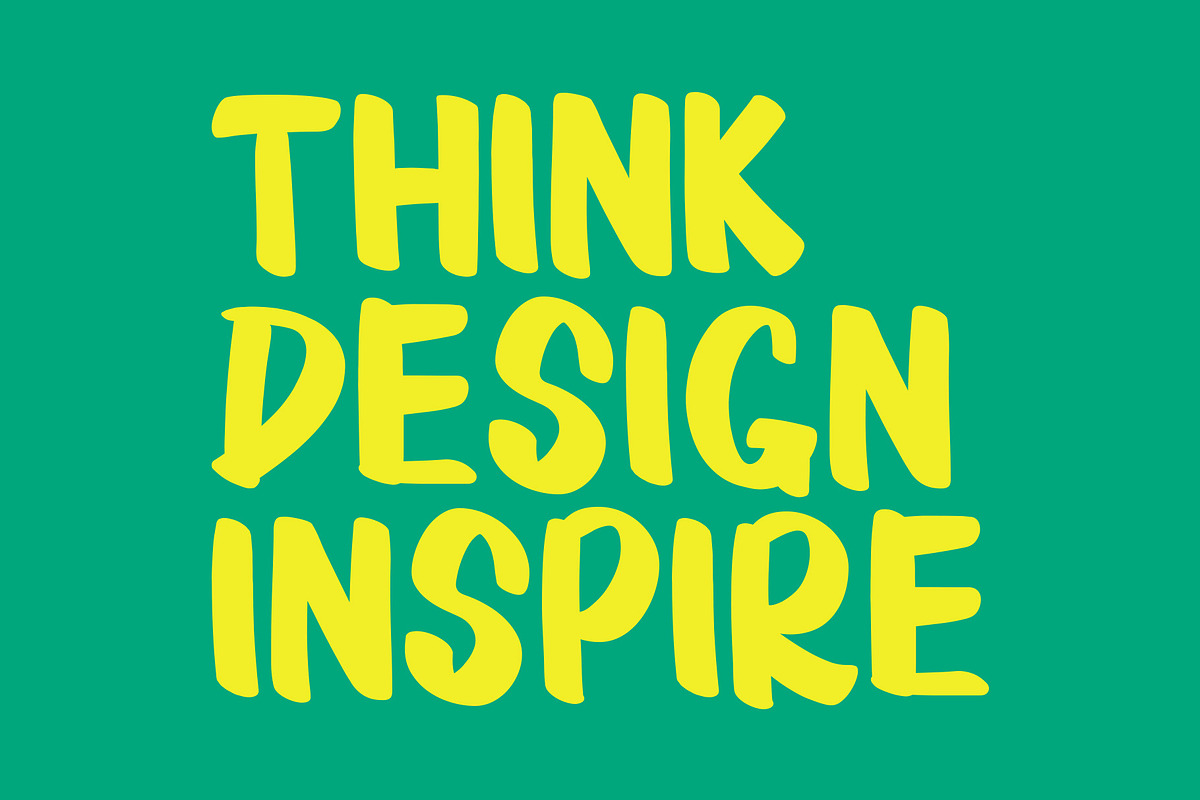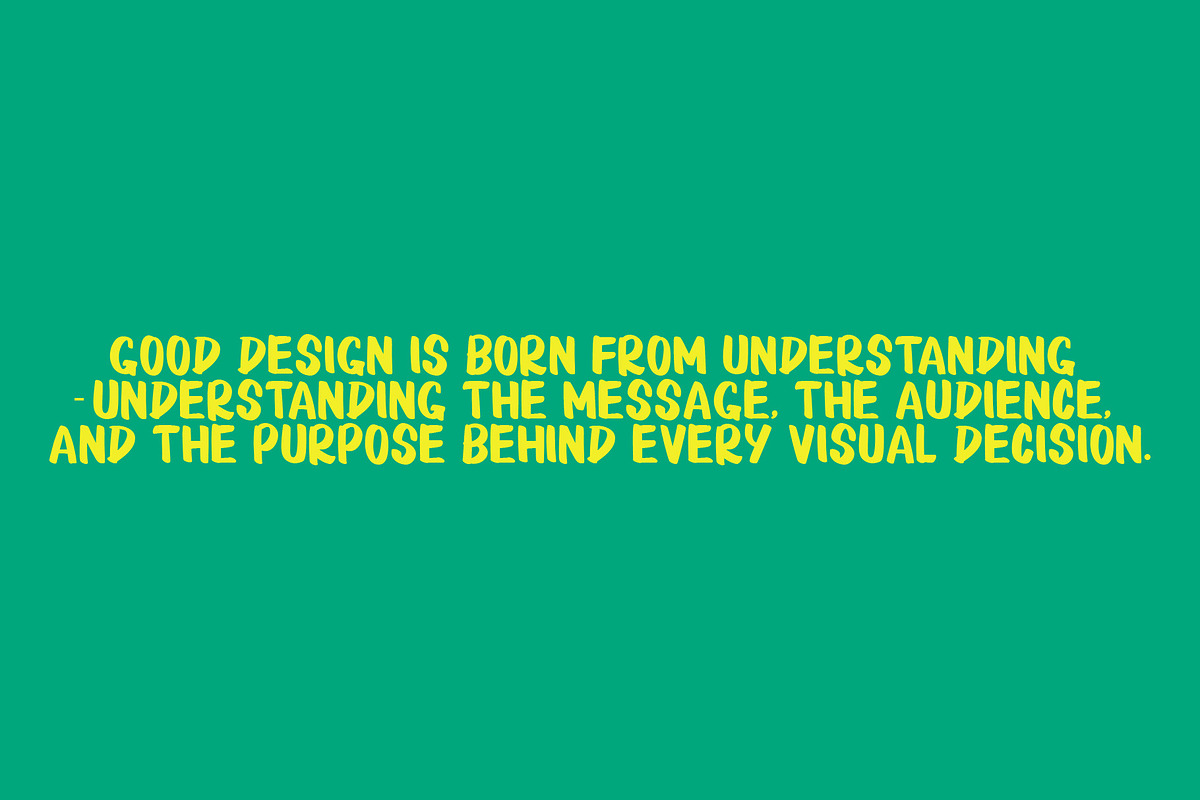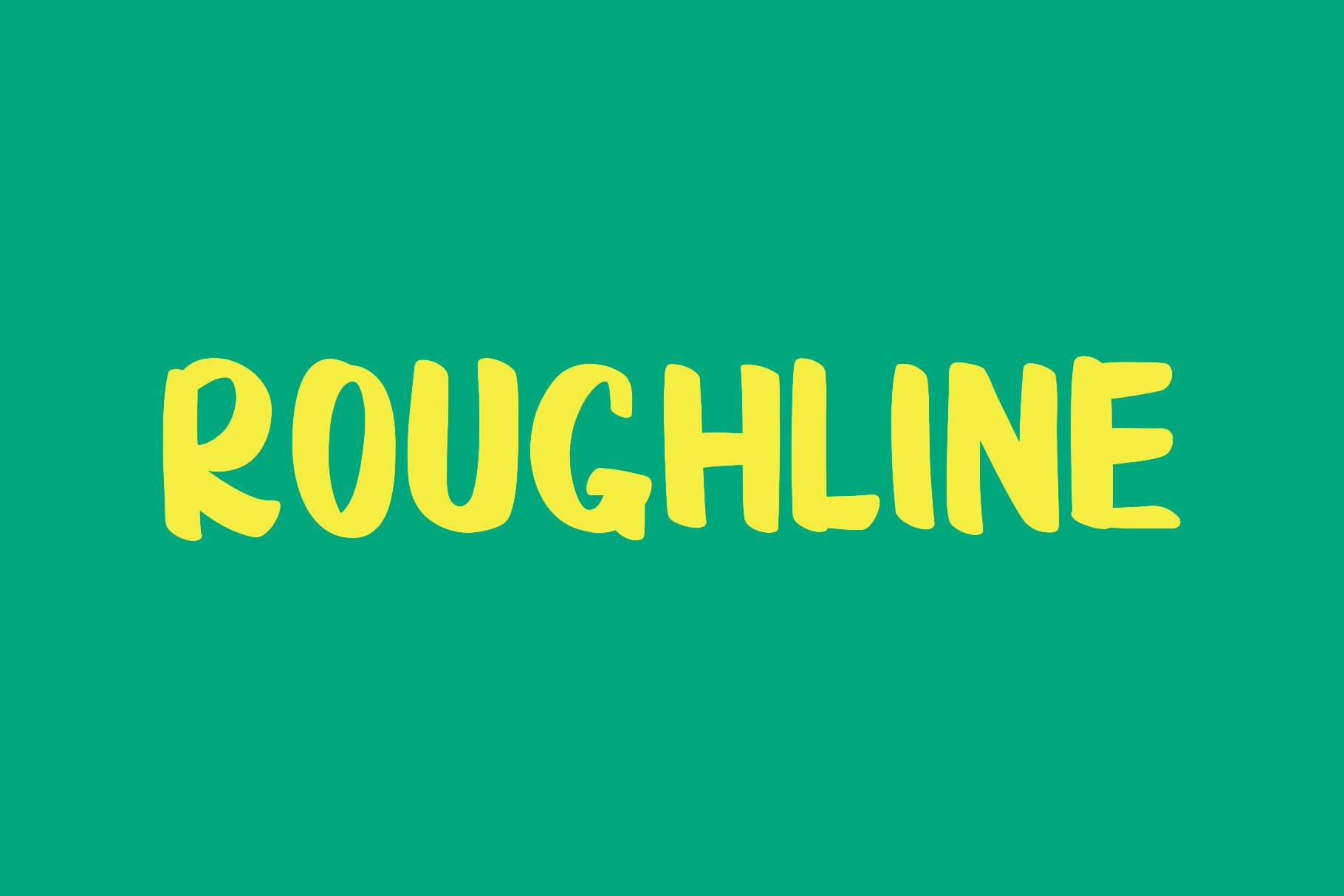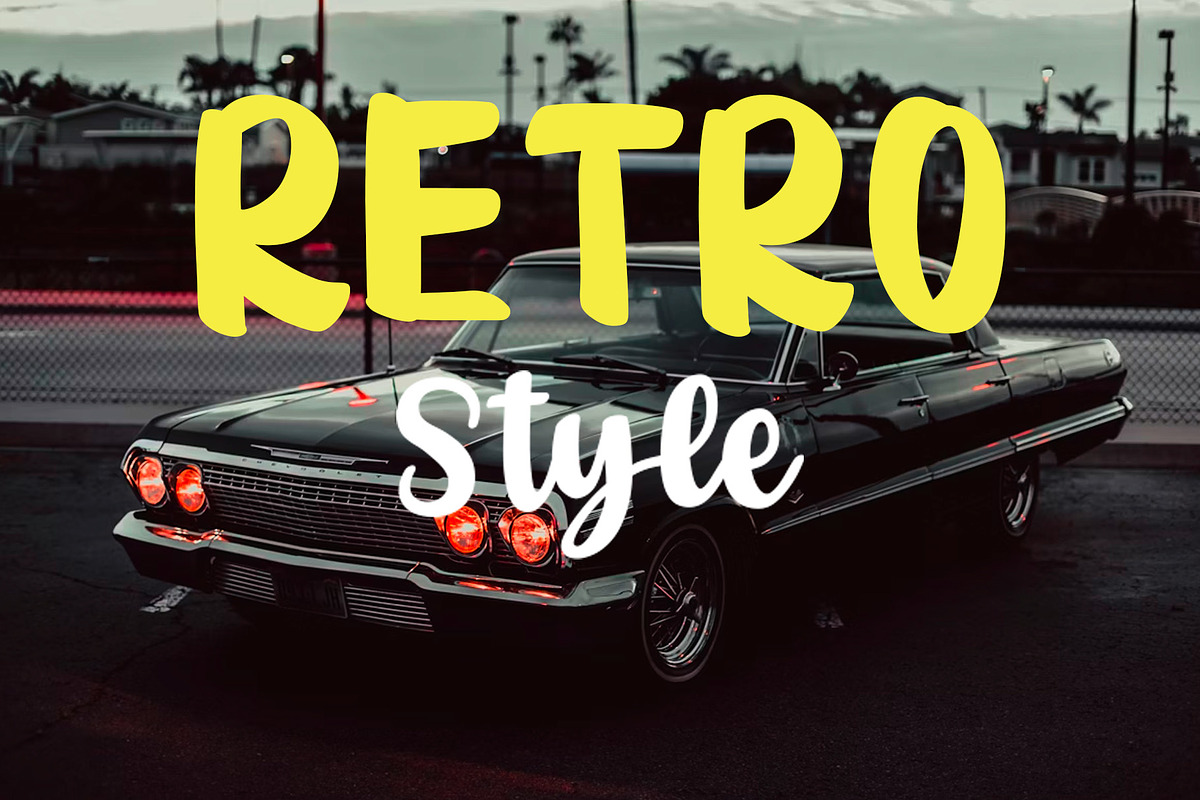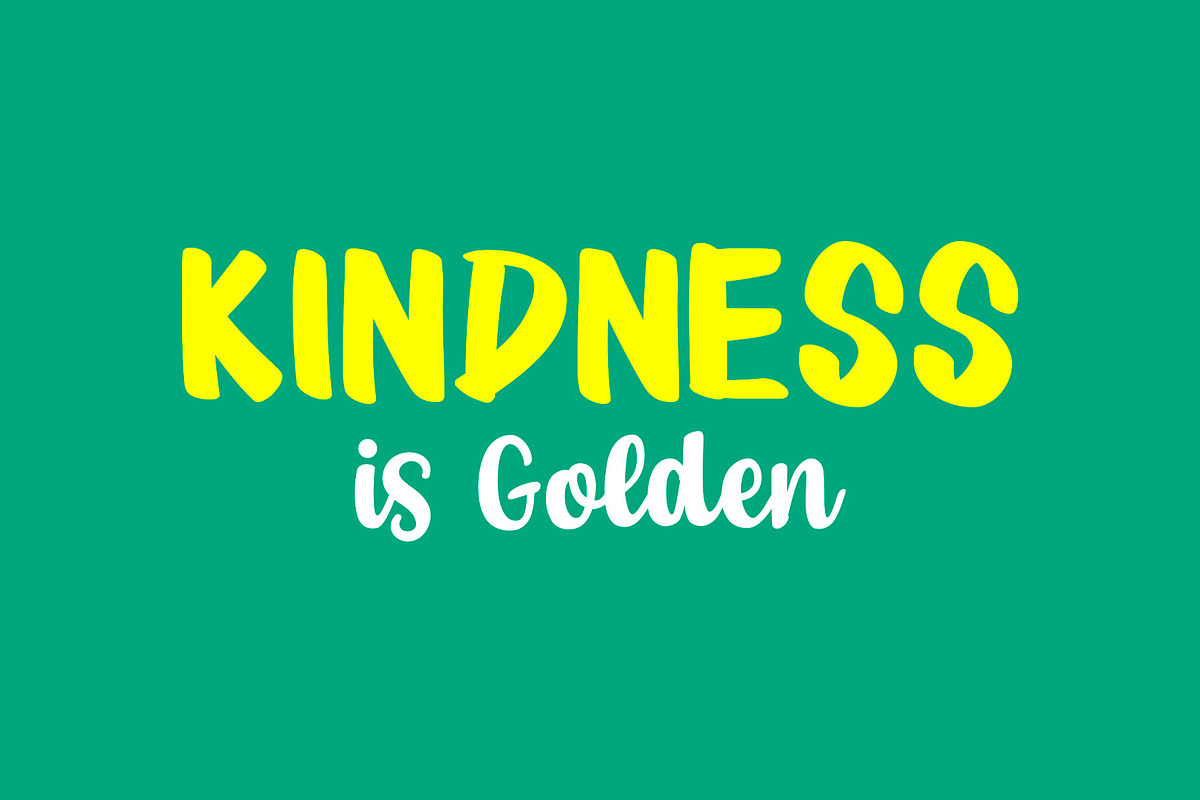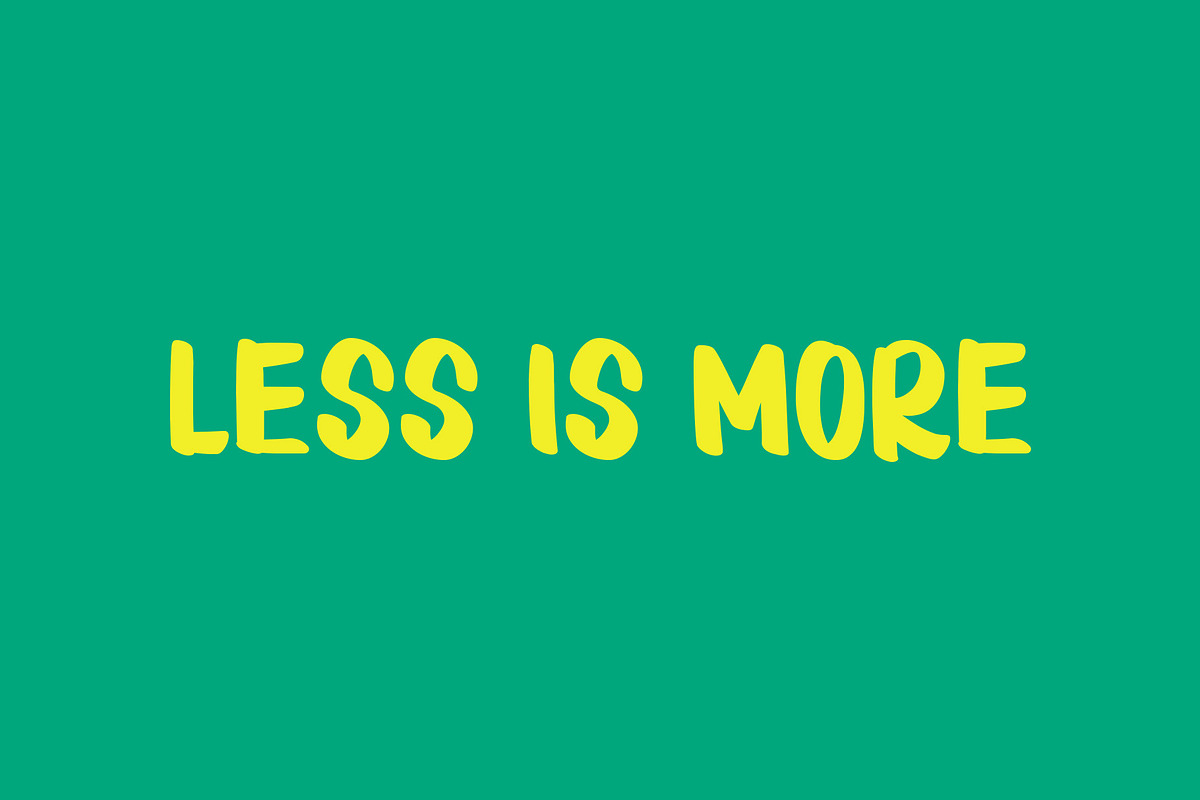
ROUGHLINE | Fun Display Font
Bring joy and personality to your designs with this playful handwritten display font! Featuring bold, rounded letterforms and a friendly style, this font is perfect for projects that need a cheerful and eye-catching look.
Whether you're designing for kids, creating fun branding, or making colorful crafts, this font adds warmth and creativity to every project
Uppercase Letters
Create fun, memorable, and playful designs with this charming handwritten font!